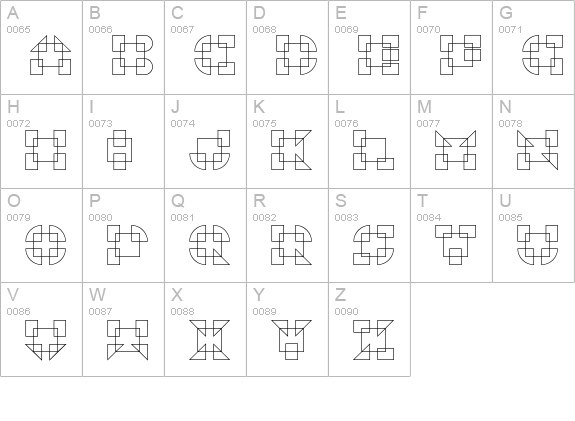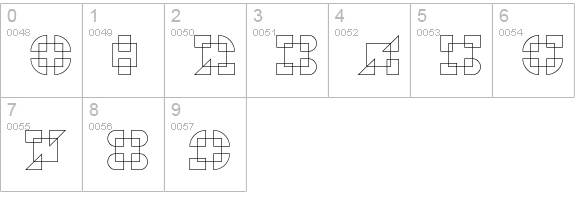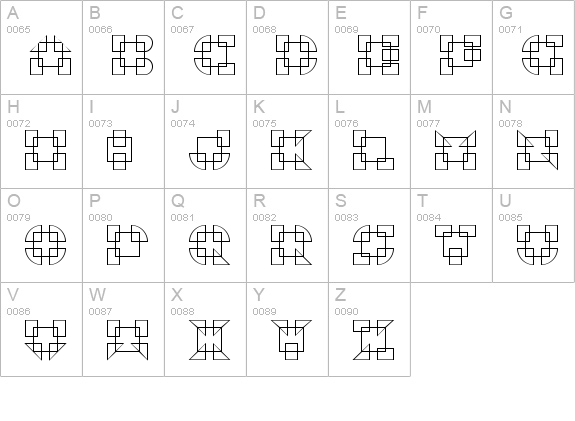
AlphaGeometrique-Outline Font Details
AlphaGeometrique-Outline font is a sleek and modern typeface that perfectly combines geometric shapes with a contemporary outline design. Its clean lines and sharp angles make it a versatile choice for a wide range of design projects, from branding and logos to posters and websites. The unique blend of geometric elements and outlined forms gives AlphaGeometrique-Outline font a distinct and eye-catching look that is sure to make your designs stand out. The best part? AlphaGeometrique-Outline font is completely free to download at FontsMarket.com. This means you can easily access this stylish and innovative typeface without having to worry about any cost. Whether you're a designer looking to add a fresh touch to your projects or a business owner in need of a striking font for your branding, AlphaGeometrique-Outline font has got you covered. Download it today and elevate your designs with this modern and captivating typeface.